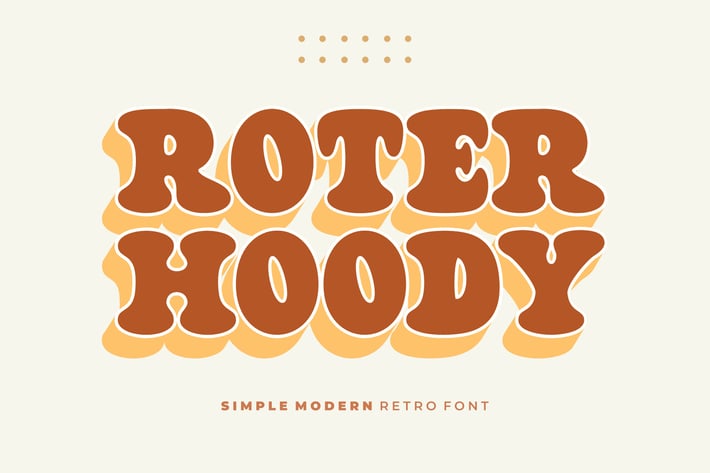
Roter Hoody Font
Roter Hoody is a modern, bold, clean and rounded font style. You will get 3 versions of this font, a regular, shadow and a outline version. Equipped with all complete characters ranging from uppercase letters, lowercase letters, numbers, punctuation marks and multi-lingual support, this font is ready to be used in any project. Masterfully designed to become a true favorite, this font has the potential to bring each of your creative ideas to the highest level.